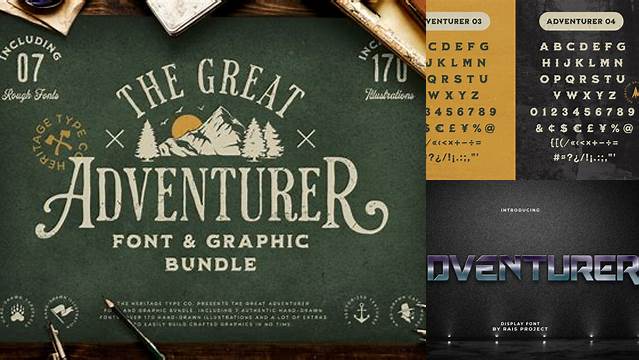
What is Adventurer 04 Font?
Okay, guys, let's dive into the world of Adventurer 04 font. What exactly is it? Well, it's a fantastic typeface that gives off a rugged, adventurous vibe – hence the name! Think of it as the Indiana Jones of fonts; it's bold, it's classic, and it demands attention. Adventurer 04 font is often used in designs that need a touch of the vintage or the outdoorsy. Imagine it on posters for national parks, logos for adventure gear companies, or even book covers for thrilling tales. It's versatile enough to fit various projects, from digital designs to print materials. The font's unique character stems from its slightly distressed edges and strong, sans-serif structure. This combination makes it both readable and visually striking. It's not just another font; it's a statement. When you use Adventurer 04 font, you're telling your audience that you're ready for an adventure, that you value quality, and that you have a keen eye for design. It's no wonder people are always searching for a free download – this font is gold! So, if you're looking to add some serious personality to your next project, keep reading, because we're going to explore where you can snag this gem without breaking the bank. Trust me, once you start using Adventurer 04 font, you'll wonder how you ever lived without it. It's a game-changer, folks!
Key Features of Adventurer 04 Font
So, what makes Adventurer 04 font stand out from the crowd? Let’s break down its key features, shall we? First off, the visual appeal is undeniable. This font has a robust, almost hand-drawn quality that gives it a unique, rustic charm. It's not your typical sterile, digital-looking font; it has character, depth, and a sense of history. Think of it as the font equivalent of a well-worn leather jacket – it just looks cool. One of the defining characteristics of Adventurer 04 font is its slightly distressed texture. This isn't a flaw; it's a feature! Those subtle imperfections add to the font’s vintage vibe, making it perfect for projects that need a touch of nostalgia. It's like it's been on countless adventures and has the stories to prove it. Beyond its looks, Adventurer 04 font is also incredibly versatile. It works well in a variety of sizes and contexts, from large headlines to smaller body text. This makes it a practical choice for everything from posters and logos to websites and books. Plus, it pairs well with other fonts, so you can easily integrate it into your existing design palette. The strong, bold letterforms of Adventurer 04 font ensure that your message will be seen and heard. It's a font that commands attention without being overly flashy or distracting. It’s the kind of font that whispers, “I’m here, and I mean business.” And let’s not forget the overall adventurous spirit it embodies. Using Adventurer 04 font in your designs instantly injects a sense of exploration and excitement. It’s perfect for brands and projects that want to evoke a feeling of the great outdoors, travel, or even just a can-do attitude. All in all, the key features of Adventurer 04 font combine to create a typeface that’s both visually stunning and highly functional. It's a font that tells a story, and that's what makes it so special.
Using Adventurer 04 Font in Design Projects
Okay, so you've got Adventurer 04 font installed – now what? It's time to put this awesome typeface to work! This font is incredibly versatile, but understanding how to use it effectively can take your designs to the next level. First off, consider the overall vibe you're going for in your project. Adventurer 04 font has a strong, rustic, and vintage feel, so it's perfect for designs that need a touch of the outdoors, adventure, or nostalgia. Think logos for hiking gear companies, posters for travel agencies, or even branding for craft breweries. But don't feel limited by these examples! The font can also work well in more modern contexts if used creatively. One of the key things to keep in mind is readability. Adventurer 04 font is bold and impactful, but it's not always the best choice for large blocks of body text. It's better suited for headlines, titles, and short bursts of text where you want to make a statement. When using it in longer text passages, make sure the font size is large enough and the spacing is generous to ensure it remains legible. Pairing Adventurer 04 font with other fonts is another crucial aspect of design. Because it's a strong and distinctive typeface, it's best to pair it with simpler, more neutral fonts for body text. Think along the lines of a clean sans-serif like Helvetica or Open Sans, or a classic serif like Garamond or Times New Roman. This will create a nice contrast and prevent your design from feeling too overwhelming. Color choices can also greatly impact how Adventurer 04 font is perceived. Earthy tones like browns, greens, and oranges can enhance its rustic feel, while bolder colors like navy blue or deep red can give it a more modern edge. Experiment with different color palettes to see what works best for your project. Finally, don't be afraid to play with the font's features. Adventurer 04 font often includes stylistic alternates or ligatures that can add extra flair to your designs. Check the font's character map in your design software to see what's available. With a little creativity and experimentation, you can use Adventurer 04 font to create some truly stunning designs.
Best Font Pairings for Adventurer 04 Font
Alright, let’s talk about font pairings – because even the coolest font needs a good sidekick, right? Adventurer 04 font is a star in its own right, but pairing it with the right typeface can really elevate your design. The key here is to find fonts that complement its rugged, vintage vibe without overshadowing it. So, what are some of the best options? First off, let’s consider the classics. A clean, simple sans-serif is often a great choice for pairing with Adventurer 04 font. Think along the lines of Helvetica, Arial, or Open Sans. These fonts are highly legible and won’t compete with Adventurer 04 font’s bold personality. They’ll serve as a neutral backdrop, allowing the headline font to really shine. For example, you could use Adventurer 04 font for a website header and Open Sans for the body text. This creates a nice balance between visual interest and readability. If you’re looking for something with a bit more personality, but still relatively clean, consider Roboto. It’s another excellent sans-serif option that pairs well with a variety of fonts, including Adventurer 04 font. Now, let’s move on to serif fonts. While sans-serif fonts are often the go-to choice for pairing with bold display fonts, a classic serif can also work wonders. Garamond, Times New Roman, or Georgia can provide a sophisticated contrast to Adventurer 04 font’s ruggedness. This combination can be particularly effective for designs that need to feel both vintage and elegant. Imagine using Adventurer 04 font for the title of a book and Garamond for the body text – a timeless pairing! If you want to get a little more adventurous (pun intended!), you could try pairing Adventurer 04 font with another vintage-inspired font. However, be careful not to overdo it – you want to create harmony, not chaos. Look for fonts that have a similar aesthetic but are less bold and attention-grabbing than Adventurer 04 font. Ultimately, the best font pairing will depend on the specific project and the overall message you’re trying to convey. Don’t be afraid to experiment and try out different combinations until you find the perfect match. Remember, the goal is to create a visually appealing and easy-to-read design that effectively communicates your message.
Designing Logos with Adventurer 04 Font
Okay, let's talk logos! If you're looking for a font that can give your logo a bold, adventurous, and slightly vintage feel, Adventurer 04 font is definitely worth considering. But designing a logo is more than just picking a cool font – it's about crafting a visual identity that represents your brand. So, how can you effectively use Adventurer 04 font in a logo design? First, think about the brand personality you want to convey. Adventurer 04 font has a strong, rugged vibe, so it's particularly well-suited for brands that are associated with the outdoors, adventure, craftsmanship, or a sense of heritage. If your brand is more modern, minimalist, or high-tech, this font might not be the best fit. However, even if your brand isn't overtly adventurous, you can still use Adventurer 04 font creatively by pairing it with other design elements that balance its boldness. For example, you could combine it with a clean, minimalist icon or a modern color palette. When using Adventurer 04 font in a logo, simplicity is key. Don't try to cram too much text or too many design elements into the logo. The font itself is quite impactful, so you don't need to add a lot of extra fluff. Focus on creating a clean, memorable, and easily recognizable design. Consider using just the brand name or initials in Adventurer 04 font, rather than a lengthy tagline or description. Font size and spacing are also crucial. Make sure the font is large enough to be legible, but not so large that it overwhelms the other elements of the logo. Pay attention to the spacing between the letters (kerning) and the lines (leading) to ensure the text is visually balanced. Color can play a significant role in how Adventurer 04 font is perceived in a logo. Earthy tones like browns, greens, and oranges can enhance its vintage feel, while bolder colors like navy blue or deep red can give it a more contemporary edge. Consider your brand's color palette and choose colors that complement the font's personality. Finally, test your logo in different sizes and contexts. Make sure it looks good on a business card, a website header, and a social media profile picture. A well-designed logo should be versatile and scalable. By following these tips, you can create a logo that effectively uses Adventurer 04 font to represent your brand's unique identity.
Creating Posters with Adventurer 04 Font